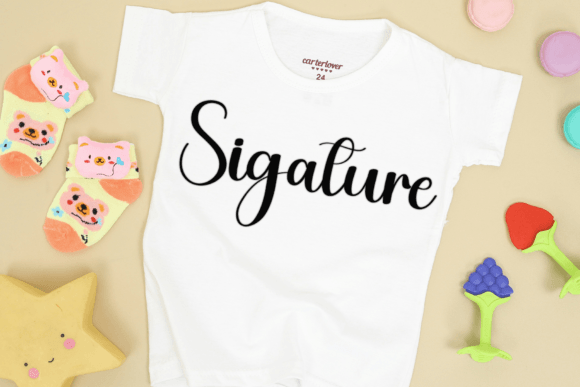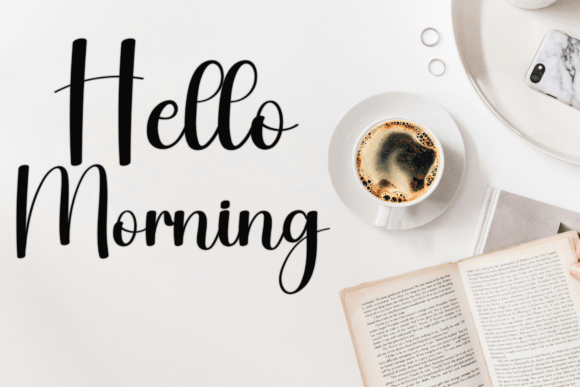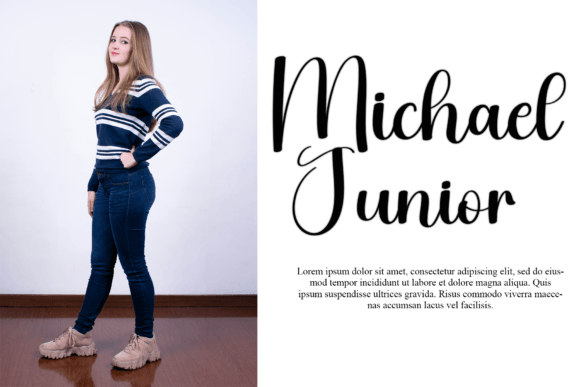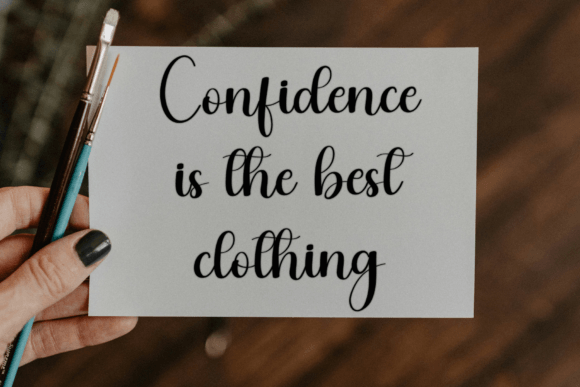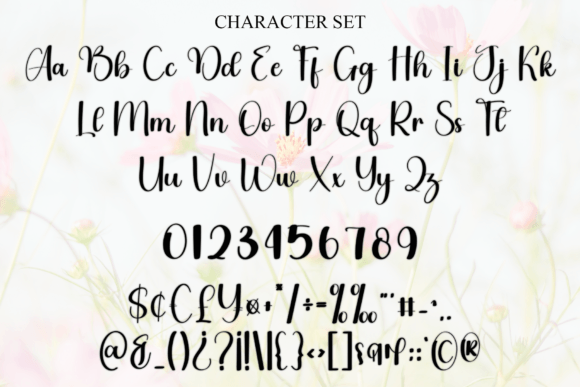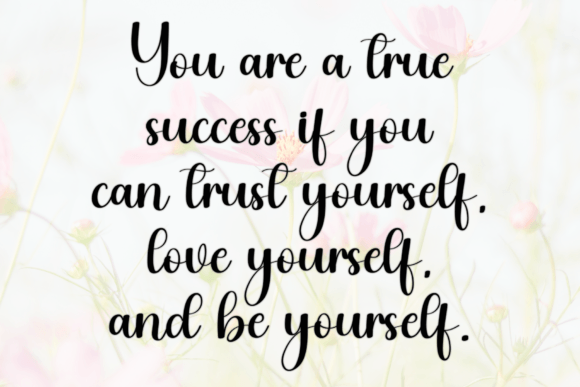
Aromatic Font: Elevate Your Designs with a Timeless Handwritten Style
In the world of typography, a well-chosen font can make all the difference in creating visually stunning designs. For designers and crafters looking to add a touch of elegance and sophistication to their work, Aromatic Font is an excellent choice. This lovely and timeless handwritten font is perfect for creating eye-catching logos, branding, and quotes that are sure to leave a lasting impression.
The Unique Charm of Aromatic Font
Aromatic Font boasts a unique and beautiful touch in every letter, making it a standout in the world of typography. Each letterform is carefully crafted to exude a sense of elegance and refinement, perfect for designers who want to add a touch of sophistication to their work. Whether you’re creating a logo, branding materials, or inspirational quotes, Aromatic Font is sure to bring your design to life.
As a designer or crafter, you’re constantly on the lookout for fonts that can help you create stunning visuals. Aromatic Font is an excellent choice for a variety of design projects, including:
- Logos: Create a lasting impression with a custom logo that showcases your brand’s personality and style.
- Branding: Establish a consistent visual identity across all your marketing materials with Aromatic Font.
- Quotes: Add a touch of elegance to your inspirational quotes and make them stand out on social media.
What Makes Aromatic Font Stand Out
So, what sets Aromatic Font apart from other fonts? Here are a few key features that make it a top choice for designers and crafters:
- Timeless style: Aromatic Font has a classic, timeless quality that ensures it will never go out of style.
- Handwritten charm: The font’s handwritten style adds a touch of warmth and personality to any design.
- Unique letterforms: Each letter has a unique and beautiful touch, making your design truly stand out.
Tips for Using Aromatic Font
To get the most out of Aromatic Font, here are a few tips to keep in mind:
- Use it sparingly: Aromatic Font is best used sparingly to add emphasis and create visual interest.
- Pair it with other fonts: Experiment with pairing Aromatic Font with other fonts to create a unique and visually appealing combination.
- Adjust the size and color: Play around with different sizes and colors to find the perfect combination for your design.
In conclusion, Aromatic Font is a lovely and timeless handwritten font that is perfect for designers and crafters looking to add a touch of elegance and sophistication to their work. With its unique and beautiful letterforms, Aromatic Font is sure to bring your design to life. Whether you’re creating logos, branding materials, or inspirational quotes, Aromatic Font is an excellent choice.